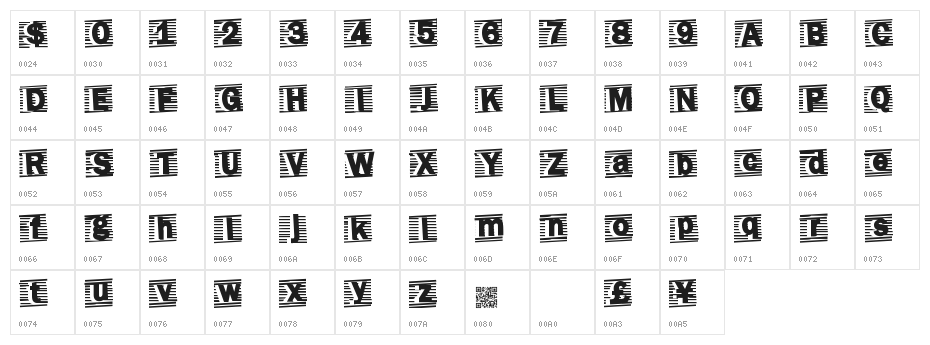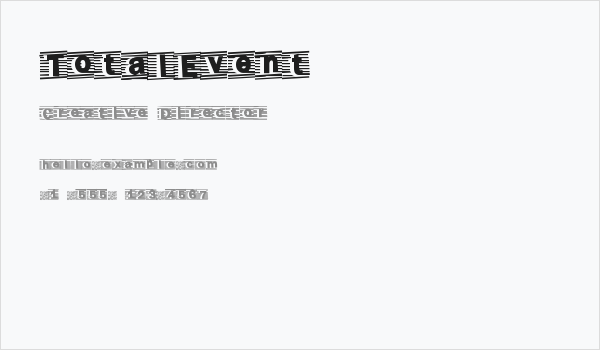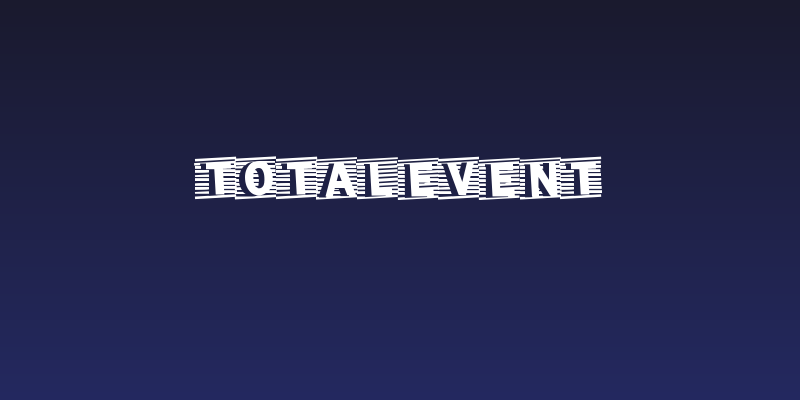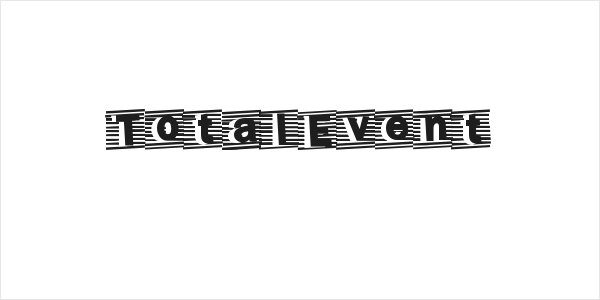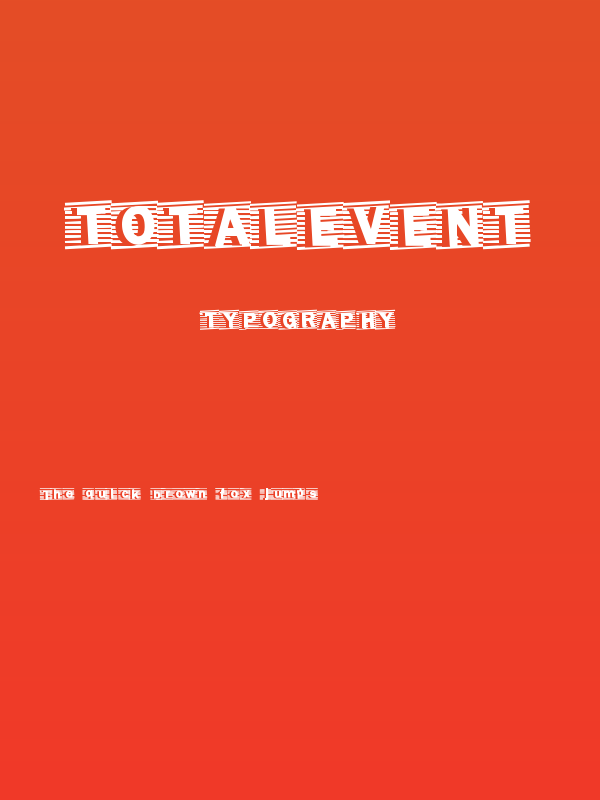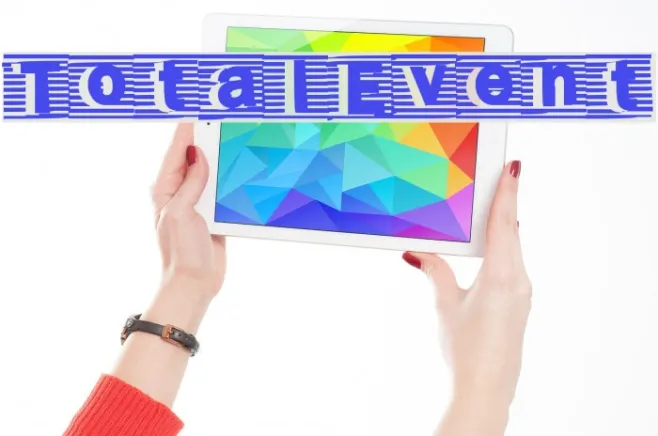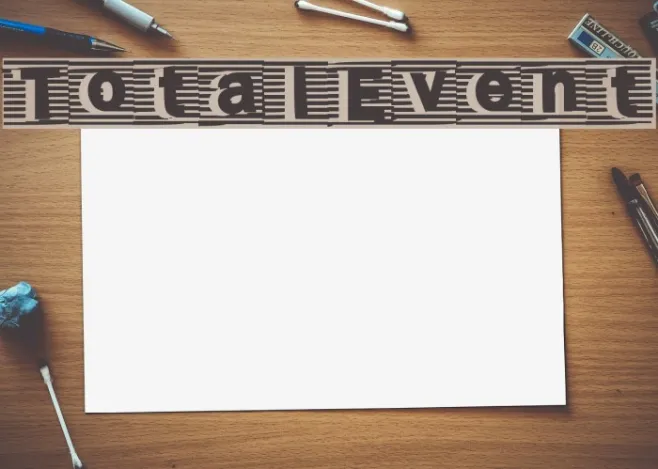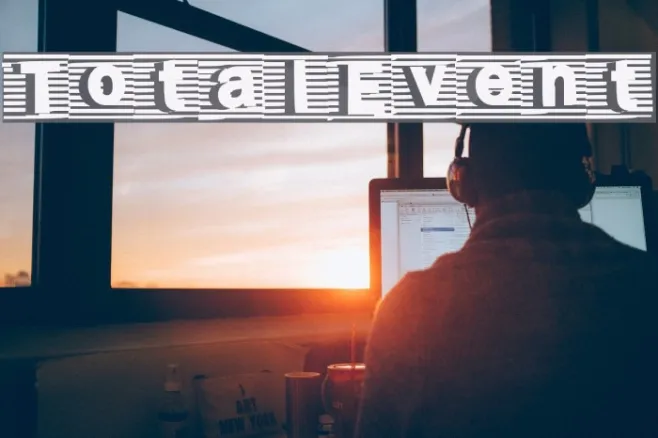
TotalEvent Font
TotalEvent Description
This font features a bold and striking design with a unique striped pattern running horizontally through each character. The uppercase and lowercase letters, as well as numbers and special characters, are all presented in a thick, blocky style that commands attention. The striped effect adds a sense of movement and dynamism, making it ideal for eye-catching designs. The characters are well-defined and maintain a consistent weight throughout, ensuring readability despite the decorative elements. This font is perfect for projects that require a bold statement, such as posters, headlines, or branding materials.
| Proposed Projects | Ideal for posters, headlines, branding, and any design needing a bold statement. |